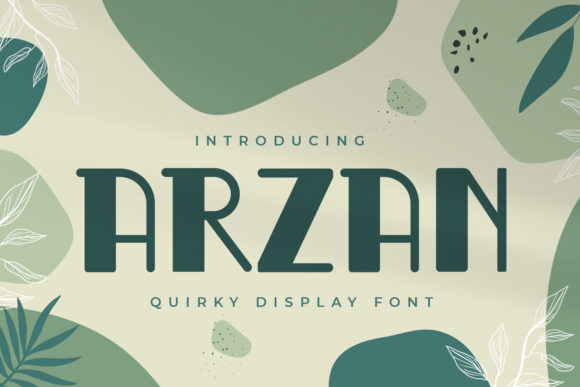
Introducing Arzan Font: A Journey into the Realm of Whimsy and Delight
In a world yearning for enchantment, there exists a font with the power to ignite imagination and capture hearts. Arzan Font, a display font family born from the creative vision of OKEVECTOR, embodies the essence of playfulness and authenticity, making it the perfect companion for any children's activity or school project.
With its cheerful and chunky letters, Arzan Font transforms ordinary designs into captivating adventures. Each character dances across the page, exuding an infectious energy that draws readers into a world of wonder and imagination. Whether crafting a whimsical children's book, designing educational materials, or creating vibrant posters, Arzan Font adds a touch of magic that captivates audiences of all ages.
Arzan Font: A Symphony of Joy and Creativity
Arzan Font is more than just a font; it's an invitation to embark on a creative journey. Its bold and playful style inspires a sense of freedom, encouraging children to express themselves without boundaries. The thick strokes and rounded edges of each letter create a friendly and approachable aesthetic, making it perfect for capturing the attention of young readers.
Imagine the delight of a child discovering a new storybook, its pages adorned with the enchanting characters brought to life by Arzan Font. The letters become companions, guiding young minds through fantastical landscapes, unlocking hidden treasures, and sparking endless possibilities. Arzan Font transforms the act of reading into an interactive experience, fostering a lifelong love for literature and learning.
Arzan Font: A Hallmark of Quality and Versatility
Arzan Font stands as a testament to the transformative power of design. Its versatility extends beyond children's books and educational materials, making it a valuable asset for a wide range of creative projects. Designers and artists can harness its playful energy to create eye-catching posters, vibrant social media graphics, and memorable branding elements.
Arzan Font's ability to capture attention and convey messages with clarity makes it an ideal choice for marketing and advertising campaigns. Its chunky letters command attention, while its playful personality creates an emotional connection with audiences. Whether promoting a new product, announcing a special event, or simply sharing a message of joy, Arzan Font delivers a powerful impact that resonates with viewers.
Arzan Font: A Font That Inspires and Empowers
Arzan Font is more than just a collection of letters; it's a catalyst for creativity, a spark that ignites imagination, and an empowering tool that allows children and adults alike to express themselves authentically. Its playful and cheerful style encourages experimentation, inviting users to explore new ideas and push the boundaries of their imagination.
With Arzan Font, the possibilities are endless. It's a font that empowers individuals to create captivating stories, design stunning visuals, and share messages of joy and inspiration. As users embark on their creative journey with Arzan Font as their guide, they'll discover a world where anything is possible and where imagination reigns supreme.